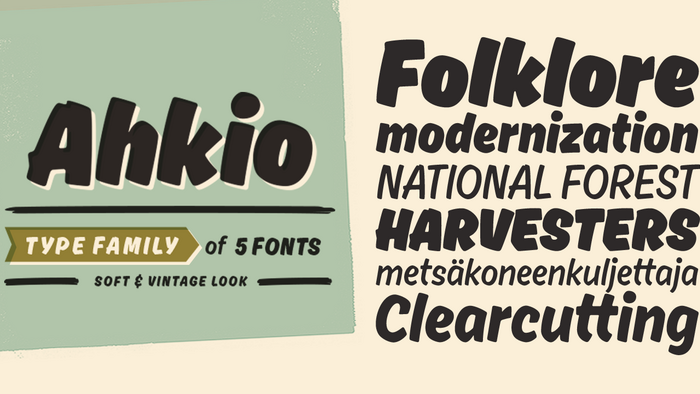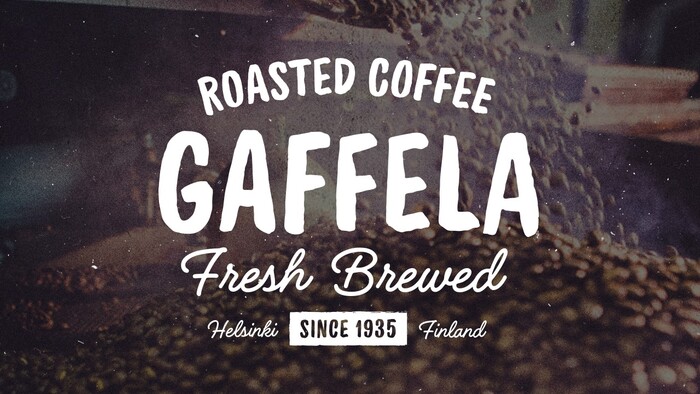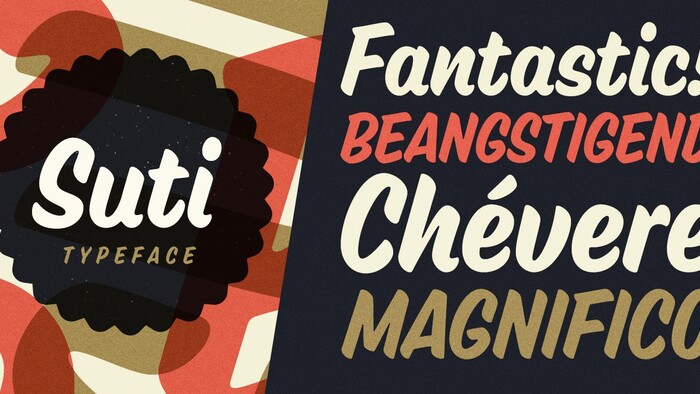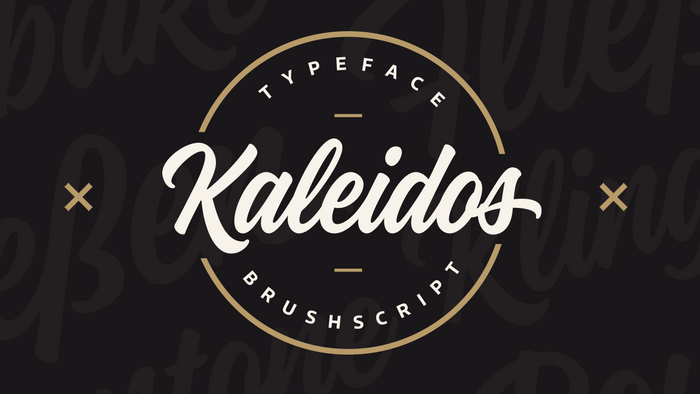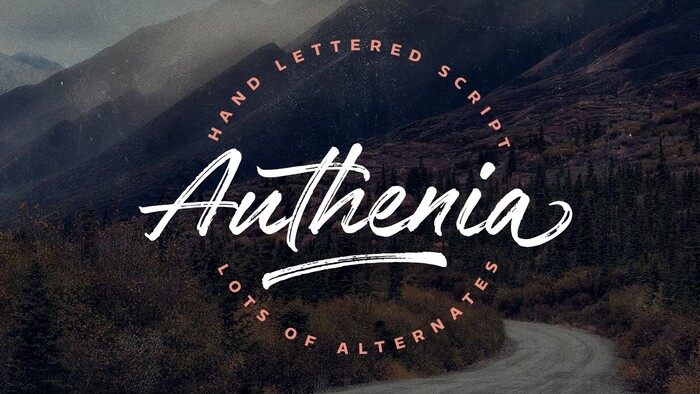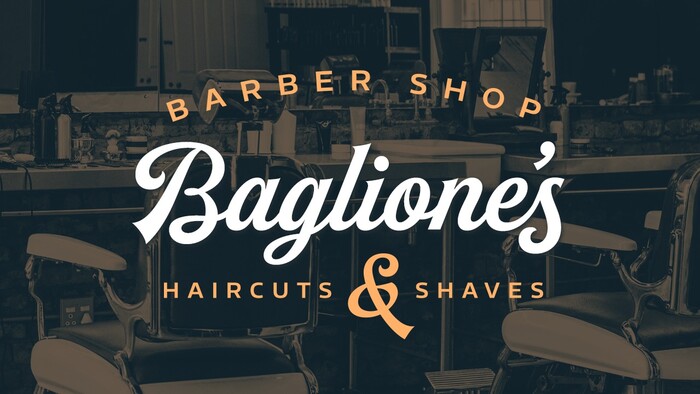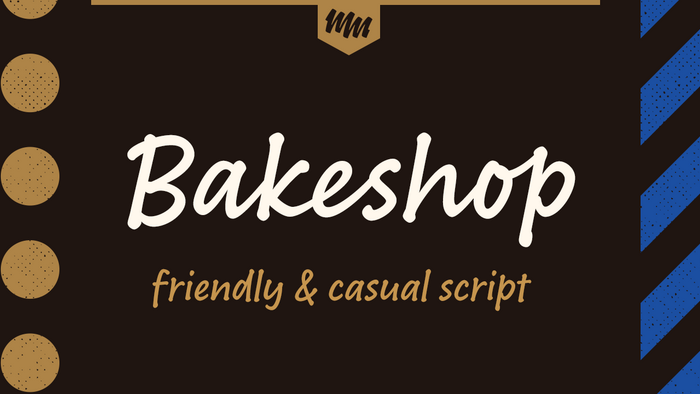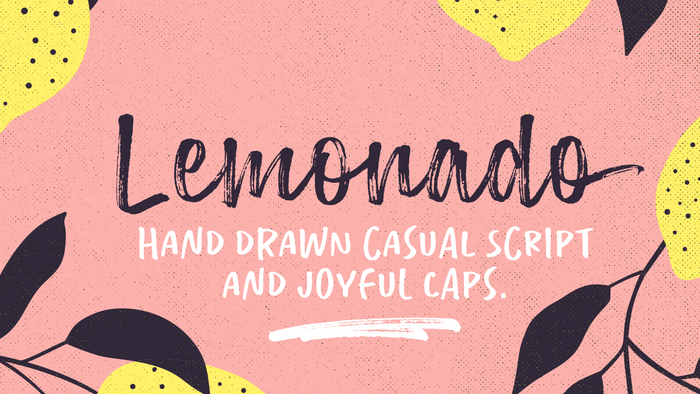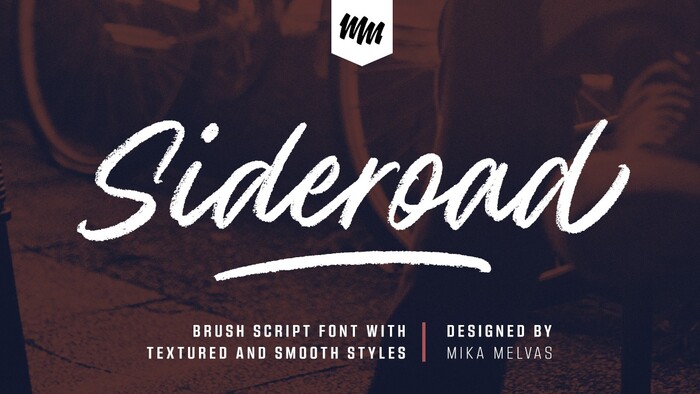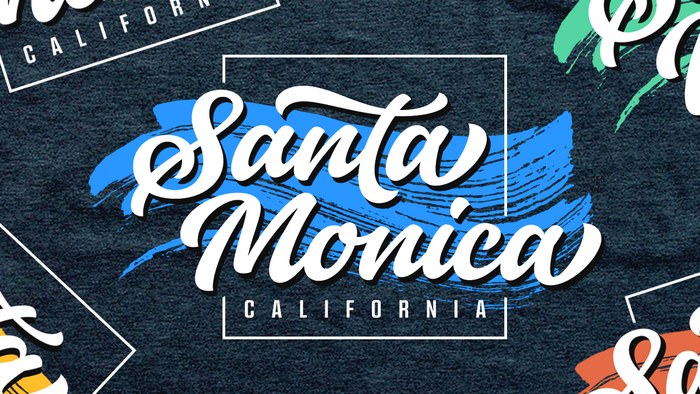
Mika Melvas foundry highlights.
by Mika Melvas.
Mika Melvas.
Mika Melvas began his career as an art director and graphic designer in advertising agencies and experimented with type on the side. Following his passion, Mika worked hard to guide his career towards becoming a full-time type designer and lettering artist. His library now spans a typographic range from extra bold slab serifs to his more signature style of playful brush script fonts.
Authenia
Authenia is an organic, authentic and laid-back script. It appears casually and quickly written with a brush pen on a paper. There is just the right amount of texture so the fonts are effective typeset in both small and large sizes!
Monteria
Monteria is a clean brush script font designed to have an easy flow and soft forms. The basic letters are designed to simple and readable, but can be dressed up with plenty of alternates. It’s suitable for logos, titles, t-shirts, packages and more.
Mainsail
A handwritten brush script font, Mainsail was written with a dry brush pen, so it has this nice texture and flow. Mainsail has lots of alternates to make it look more like real handwriting; four sets of lower cases and two sets of upper cases. Mainsail is great option for logos, headlines and packaging. You can also use it in longer texts where you need this casual handwritten look. It also combines well with sans and serif fonts.
Handelson
Handelson is a collection of 6 handmade typefaces with an authentic and organic feel. It contains three scripts, one non-connected script and two all caps geometric sans serifs. Textures and rough edges simulate handwritten and printed looks. By combining these fonts you can make diverse typographic solutions and elements with a unified style.
Lemonado
Lemonado includes upright and italic scripts and all caps fonts with brush texture or with smooth edges. The script is a playful, slightly bouncing and connecting script. It includes two sets of lower cases to increase the handwriting effect. With contextual alternates, you can cycle these two sets to achieve variation to achieve a more natural look. You can also enable contextual alternate for the caps style, which has two sets of upper case letters, high and low, to achieve a fun-looking bouncing effect.
Bakeshop
Bakeshop is a casual script font family drawn with a rounded marker, producing low contrast. To create a convincing natural look, it even has the bumps at the end of strokes where the pen has stopped and the ink has spread. Bakeshop includes three weights and has both connecting and non-connecting versions.
Kaleidos
Kaleidos is a lining and clean brush script with soft and round letterforms. It is sketched and drawn with a pointed brush pen. Kaleidos has plenty of alternates, ligatures and swashes so you can build interesting-looking words and headlines. While Kaleidos is condensed and quite tightly spaced, it is clear and legible.
Ahkio
Rooted in 1930’s sign painting and showcard lettering, Ahkio is a brushed disconnected script family of 5 fonts. It’s main characteristics are soft, rounded forms and a bit curved stems. Ahkio is a friendly and gentle font that suits well in titles, packages, logos and for example posters. 5 weights makes Ahkio a versatile font that allows you to add contrast and interest to your typography.
Suti
Suti is a non-connected sign painter’s casual script with upper and lower cases. Originally designed in 2010, it was completely re-drawn in 2016. Every sign painter has more or less their own Casual Lettering style. These casual alphabets are painted with speed and they don’t need to line up perfectly but letters are still clean and easy to read.
Sideroad
Sideroad is an intensive hand-drawn brush script font. It comes in two versions: textured and smooth. The textured version has this rough effect that comes when letters are drawn with a pointed brush on a rugged surface. The smooth version is, like the name says, smooth as silk with polished edges. Use the corresponding underlines to give that final punch to your design.
Buinton
Designed to be noble and vintage, Buinton is a script typeface with serifs at the beginnings of the strokes and swash capitals. It has also a bunch of tails with different shapes and widths to give the vintage logotype or sports look to your design.
Signalist
Signalist is a dynamic and energetic brush script. The tight spacing, narrow letters and sharp edges and gives Signalist its distinctive looks and character. It is suitable for designs that need a script with a contemporary feel. You can use it on logos, t-shirts, packages, as a title font… you name it!